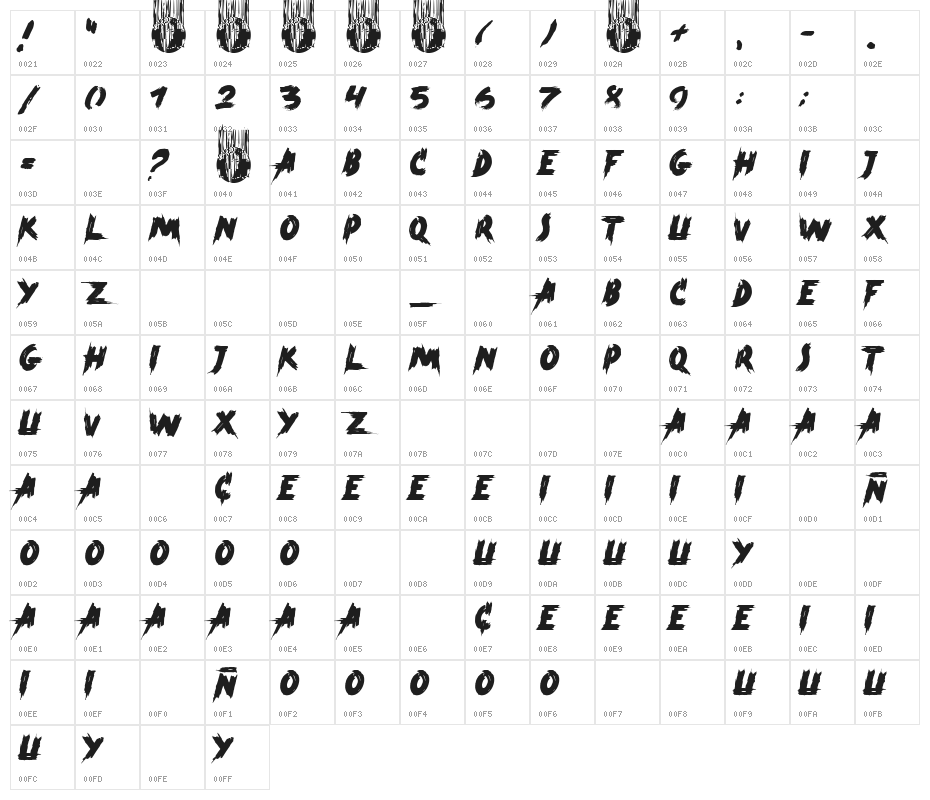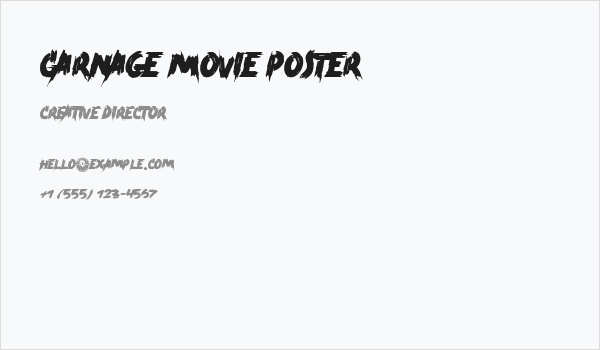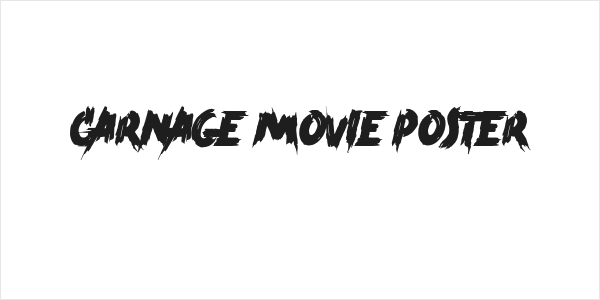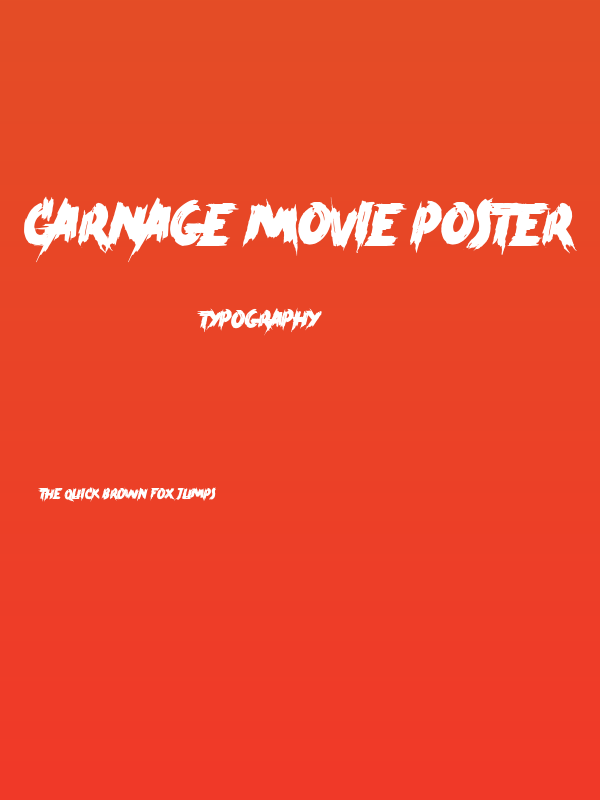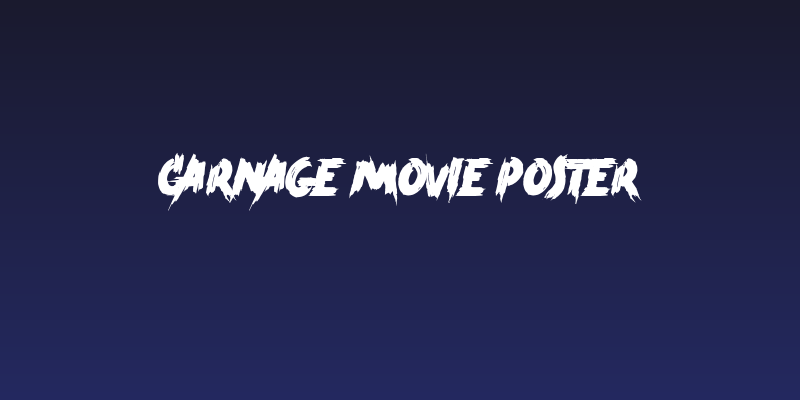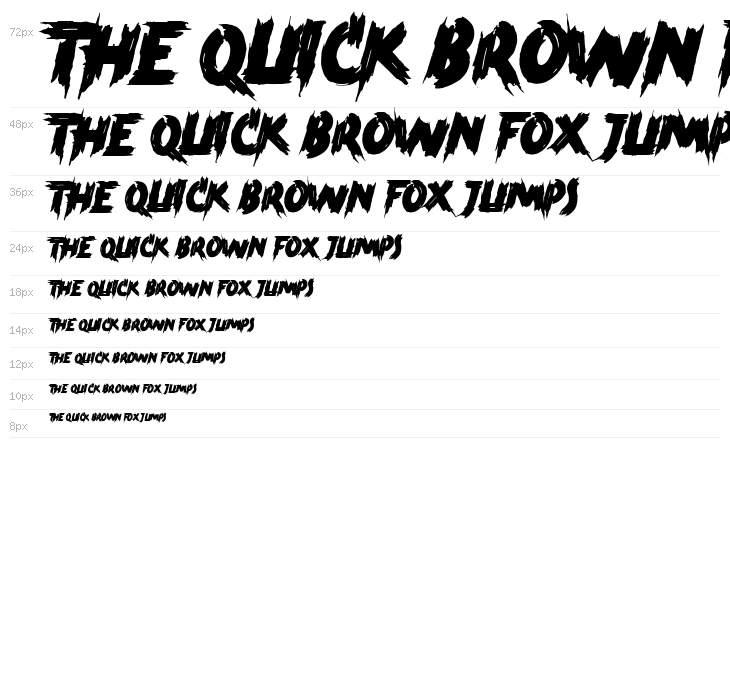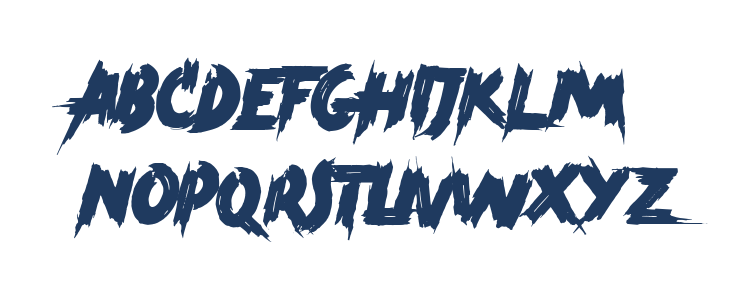
Carnage Movie Poster Font
Carnage Movie Poster Description
This font features a bold, aggressive style with jagged, brush-like strokes that convey a sense of intensity and movement. The uppercase and lowercase letters maintain a consistent, dynamic energy, with sharp edges and irregular forms that suggest a hand-painted or graffiti-inspired aesthetic. Numbers and special characters follow the same energetic design, making the font suitable for attention-grabbing headlines or thematic designs. The overall appearance is raw and edgy, perfect for projects that require a dramatic and impactful visual presence.
| Overall Style | Modern, Edgy |
| Proposed Projects | Ideal for movie posters, album covers, video game titles, or any design needing a dramatic, edgy look. |